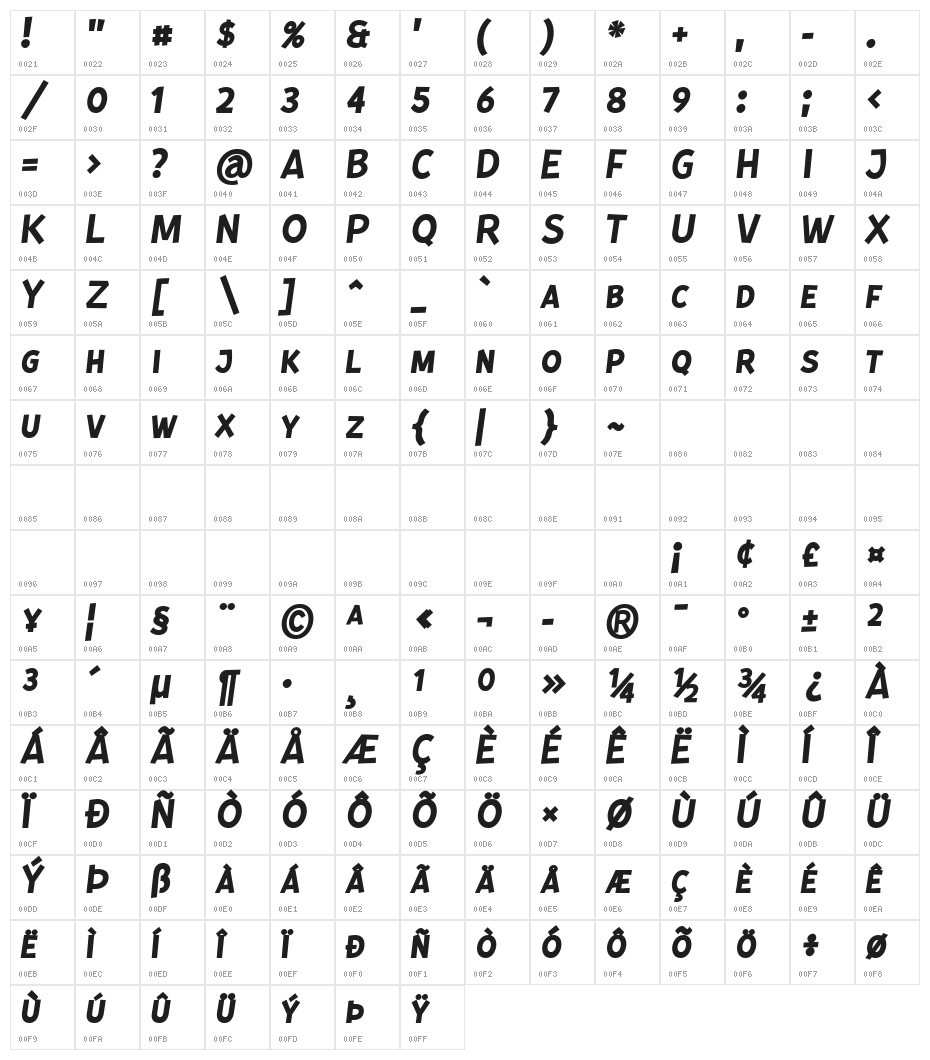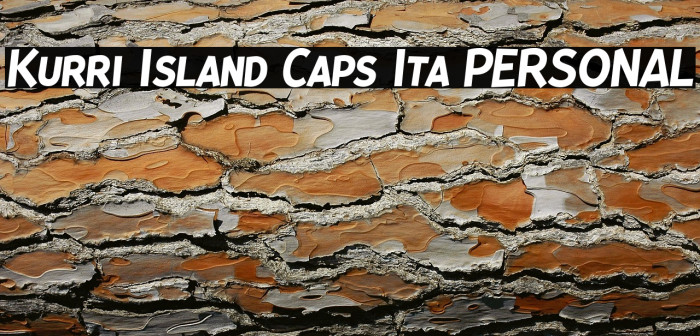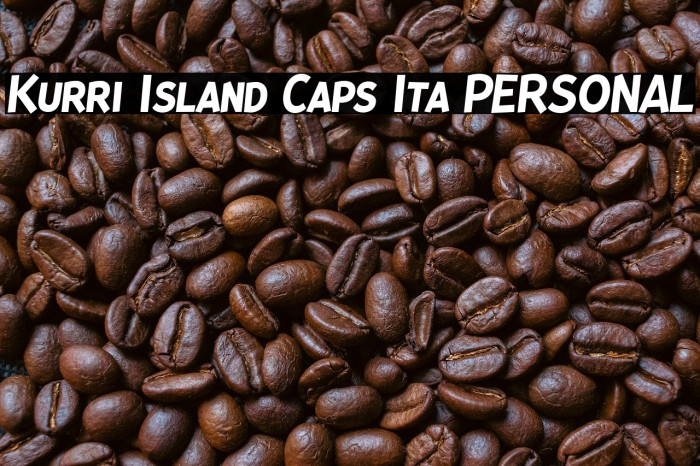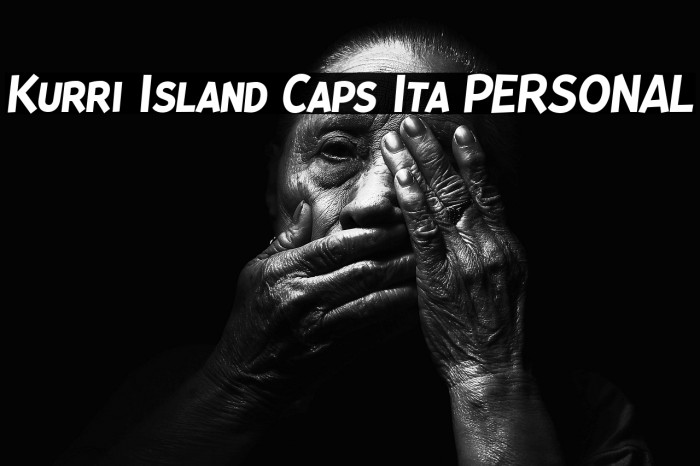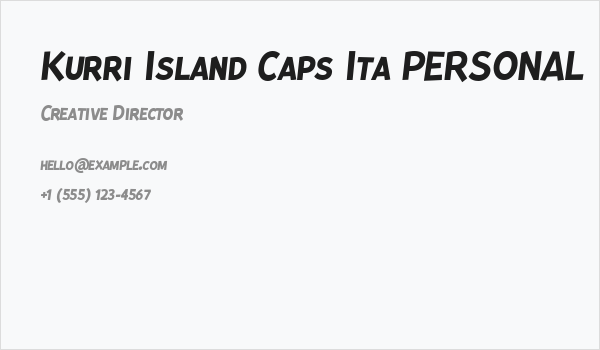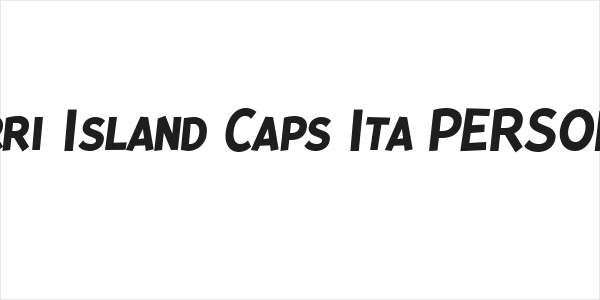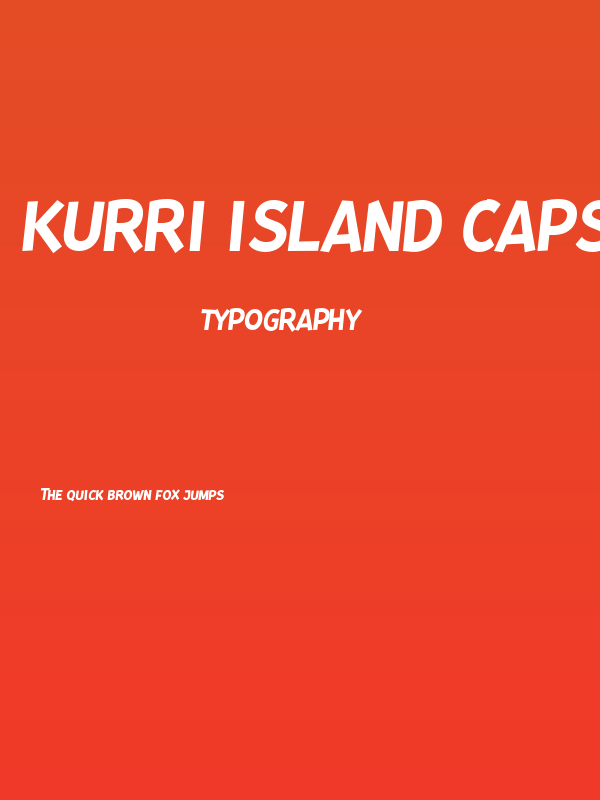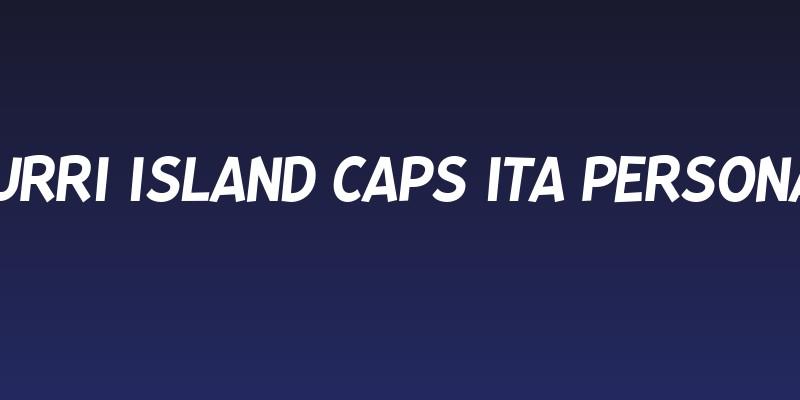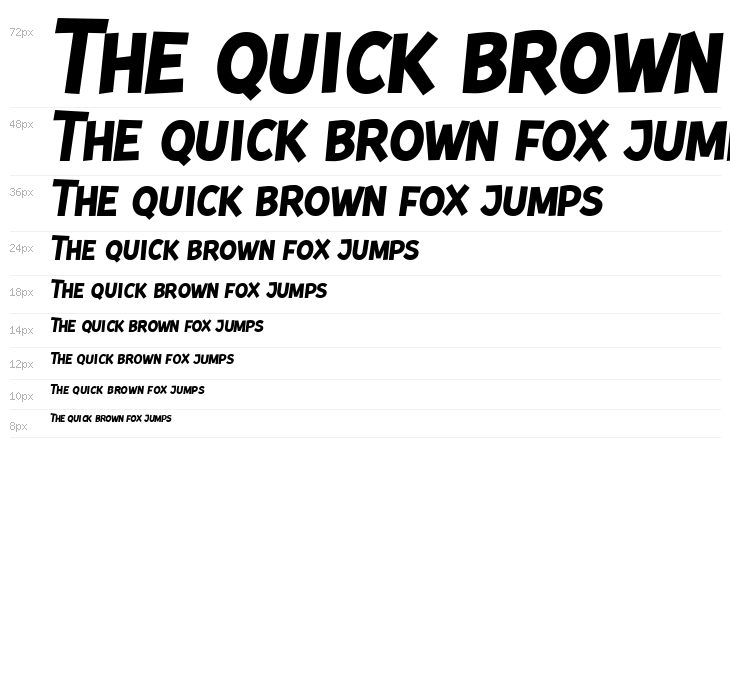
Kurri Island Caps Ita PERSONAL Font
Kurri Island Caps Ita PERSONAL Description
This font features bold, italicized uppercase letters with a dynamic and energetic style. The characters are slightly slanted, giving a sense of movement and urgency. The strokes are thick and consistent, providing a strong visual impact. The numbers and special characters follow the same bold and italicized style, ensuring a cohesive look across all elements. This font is designed to capture attention and convey a sense of boldness and modernity.
| Proposed Projects | Ideal for headlines, posters, branding materials, and any design that requires a bold and modern touch. |